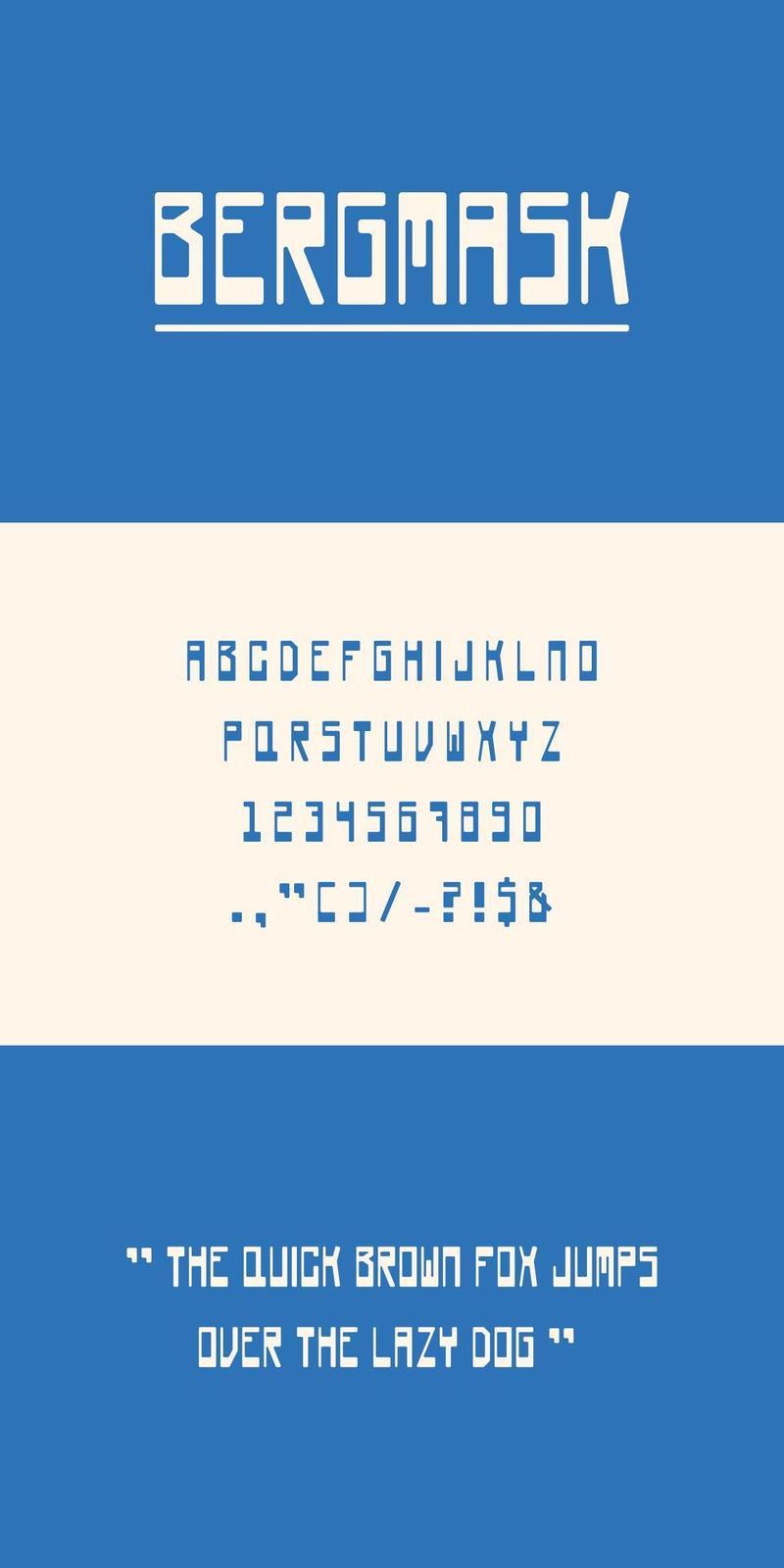
Bergmask -Modern Condensed Sans WK5E57L
Bergmask is a modern bold condensed sans-serif typeface designed to make a powerful statement. Its strong and compact design is perfect for headlines, posters, branding, logos, and editorial layouts. Bergmask delivers a striking and contemporary edge to any creative project!